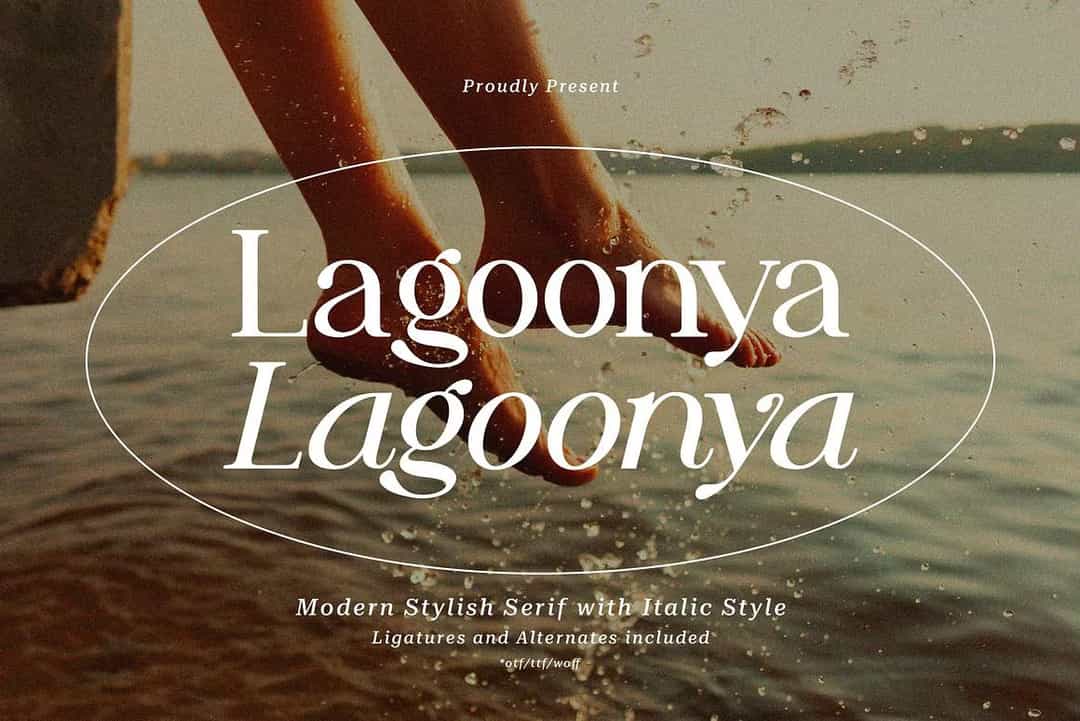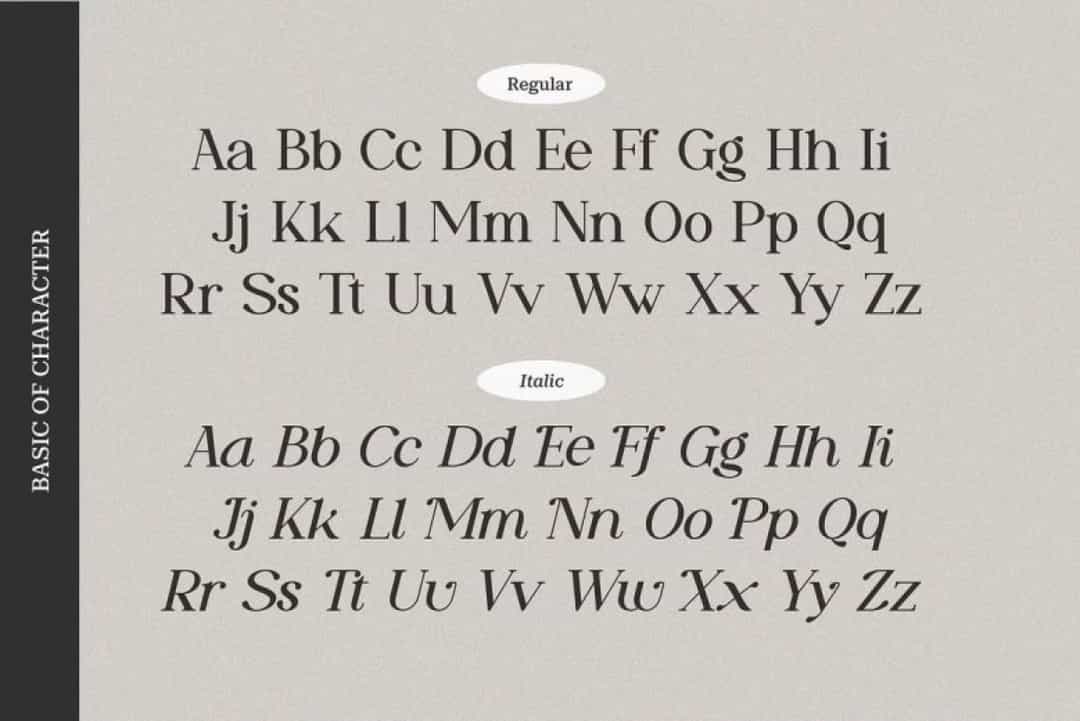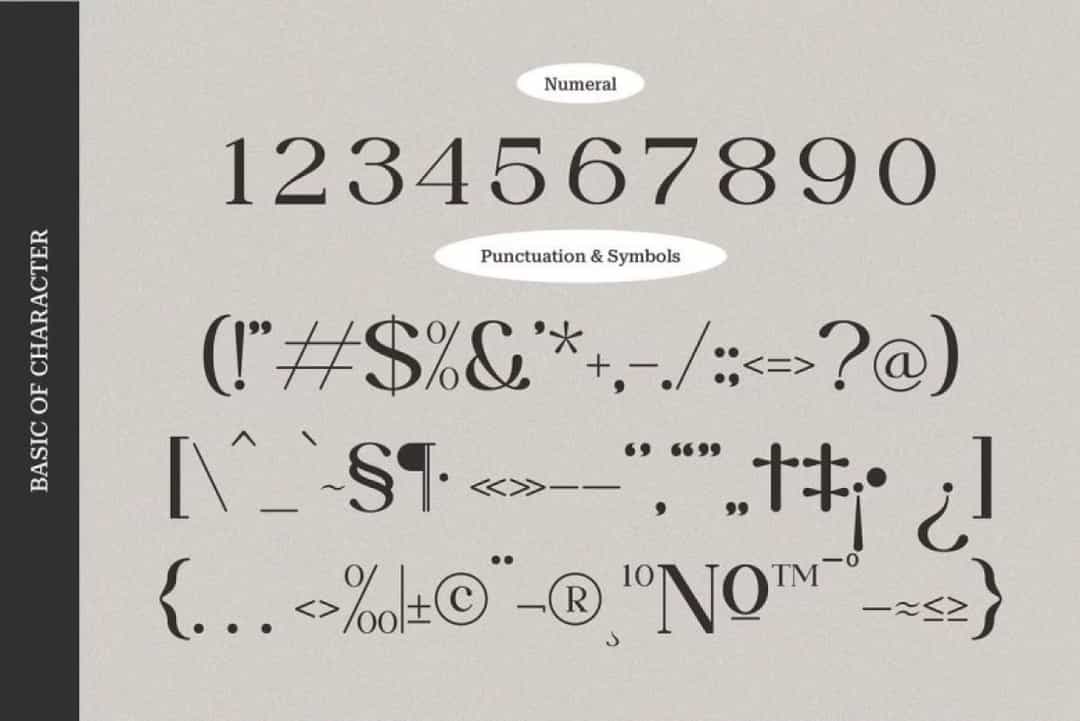
Lagoonya is a modern stylish serif font, from Gracetypestudio, suitable for any projects such as: logos, branding projects, homeware designs, product packaging, mugs, quotes, posters, shopping bags, t-shirts, book covers, name card, invitation cards, greeting cards, label, special events and all other lovely projects that you may have that require a Moden Stylish Serif flavor.